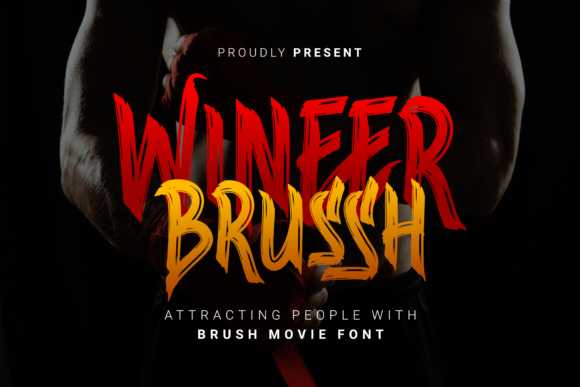
Step into the world of Wineer Brussh Font, a mesmerizing display font that effortlessly exudes a unique charm and captivating texture. Its meticulously crafted brush strokes breathe life into your designs, adding an instant touch of elegance and sophistication. Whether you're a seasoned designer or just starting out, Wineer Brussh Font is your ultimate creative companion.
Unleash the power of Wineer Brussh Font and witness your designs transform into captivating masterpieces. Immerse yourself in a world of endless possibilities, where your imagination knows no bounds. Let Wineer Brussh Font ignite your creativity and elevate your projects to new heights of excellence.
With Wineer Brussh Font, the ordinary becomes extraordinary. Its versatility knows no limits, as it effortlessly adapts to a myriad of projects, from movie titles and videos to scary, action, fantasy, and thriller titles. Its captivating presence commands attention, leaving an unforgettable impression on your audience.
Dive into the world of Wineer Brussh Font and experience the magic of exceptional typography. Its upper and lowercase characters, along with ligatures and multilingual support, provide you with the tools to create designs that resonate with your audience. Unleash your creativity and let Wineer Brussh Font guide you towards design greatness.